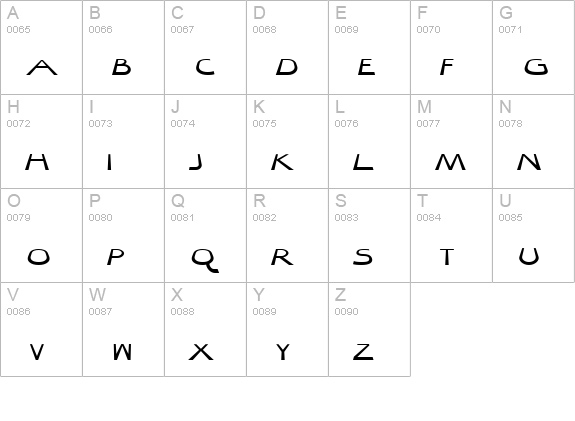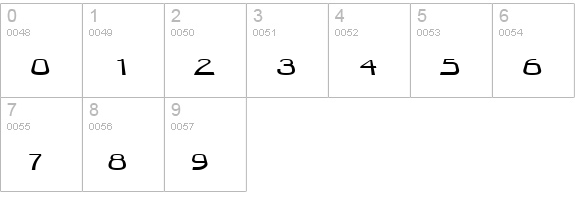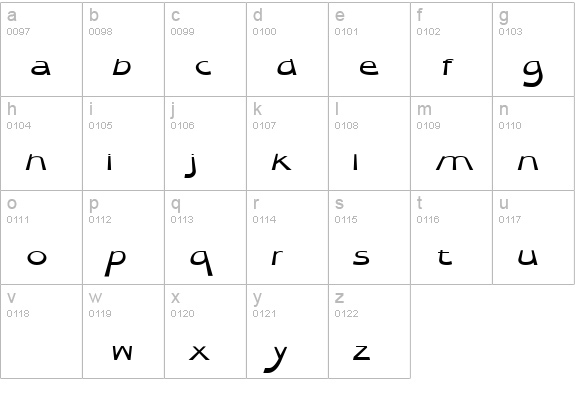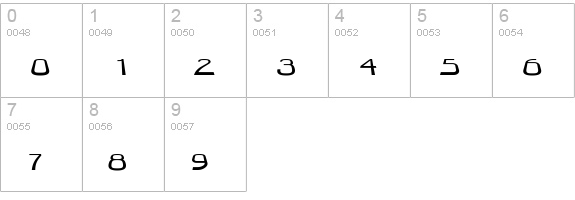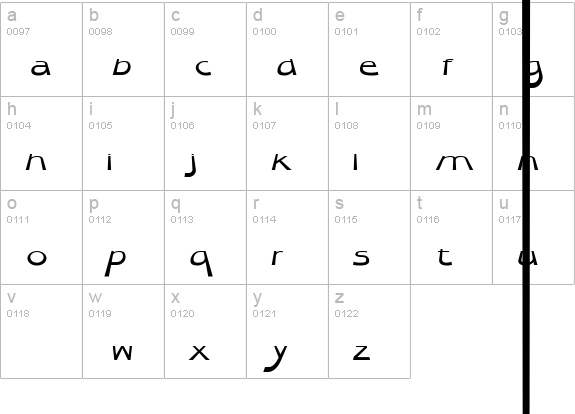
Quibel Bold Italic Font Details
Quibel Bold Italic is a strong, high-contrast, italic variant in the Quibel typeface family \xE2\x80\x94 well suited to headlines, attention-grabbing titles, and strong calls-to-action.
Introducing Quibel Bold Italic, a captivating and versatile font that effortlessly combines boldness with elegance. Its unique and stylish design is perfect for making a bold statement in any creative project. With its distinctive italicized form, Quibel Bold Italic adds a touch of sophistication and modernity to any text. Each letter is meticulously crafted, showcasing a perfect balance between thick and thin strokes, resulting in a visually striking and harmonious composition. This font is free, allowing you to bring your designs to life without any cost constraints. You can download Quibel Bold Italic at FontsMarket.com, a reliable source for high-quality and diverse font options. Whether you're designing eye-catching posters, creating captivating social media graphics, or crafting stunning logos, Quibel Bold Italic will surely elevate your work to new heights. Its versatility makes it suitable for a wide range of projects, from branding and advertising to editorial design and beyond. Impress your audience with the bold and expressive nature of Quibel Bold Italic. Its sleek and modern appearance will instantly captivate attention and leave a lasting impact. Elevate your design game with this exceptional font, freely available for download at FontsMarket.com.